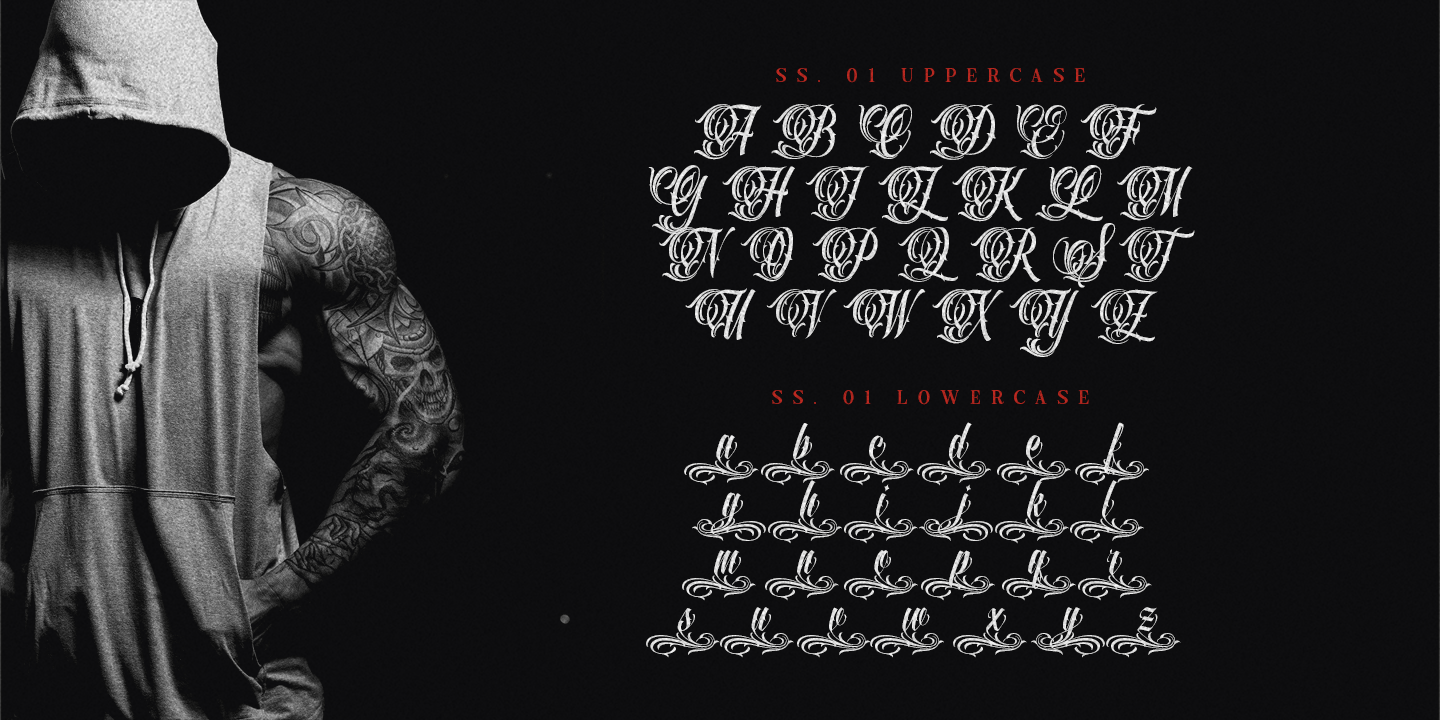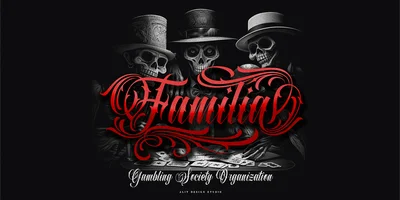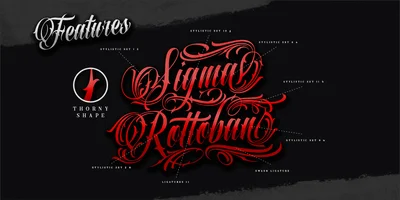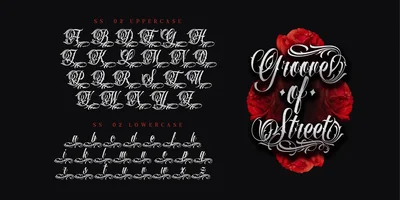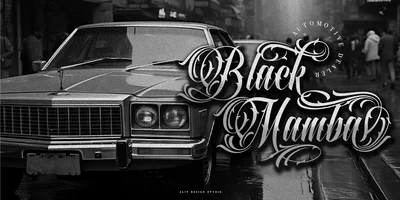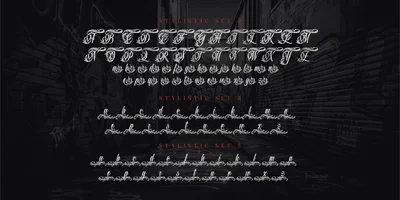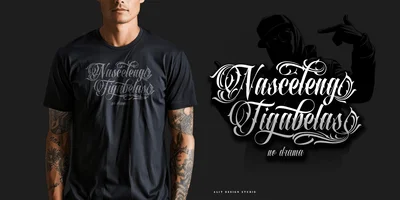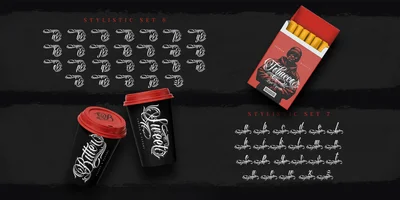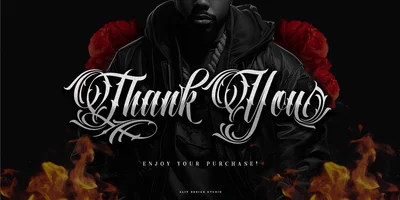
Familia vs Calligraffitti
Calligraffitti is a popular open-source alternative to Familia's script design. At 60% similarity, Calligraffitti delivers a playful, creative aesthetic. Compare which works better for display and branding projects.
Consider: Familia
- Delivers a playful, creative, artistic aesthetic
- Popular in education-academia design
- Versatile enough to replace 8+ premium fonts
Recommended: Calligraffitti
- Designed specifically for display and branding